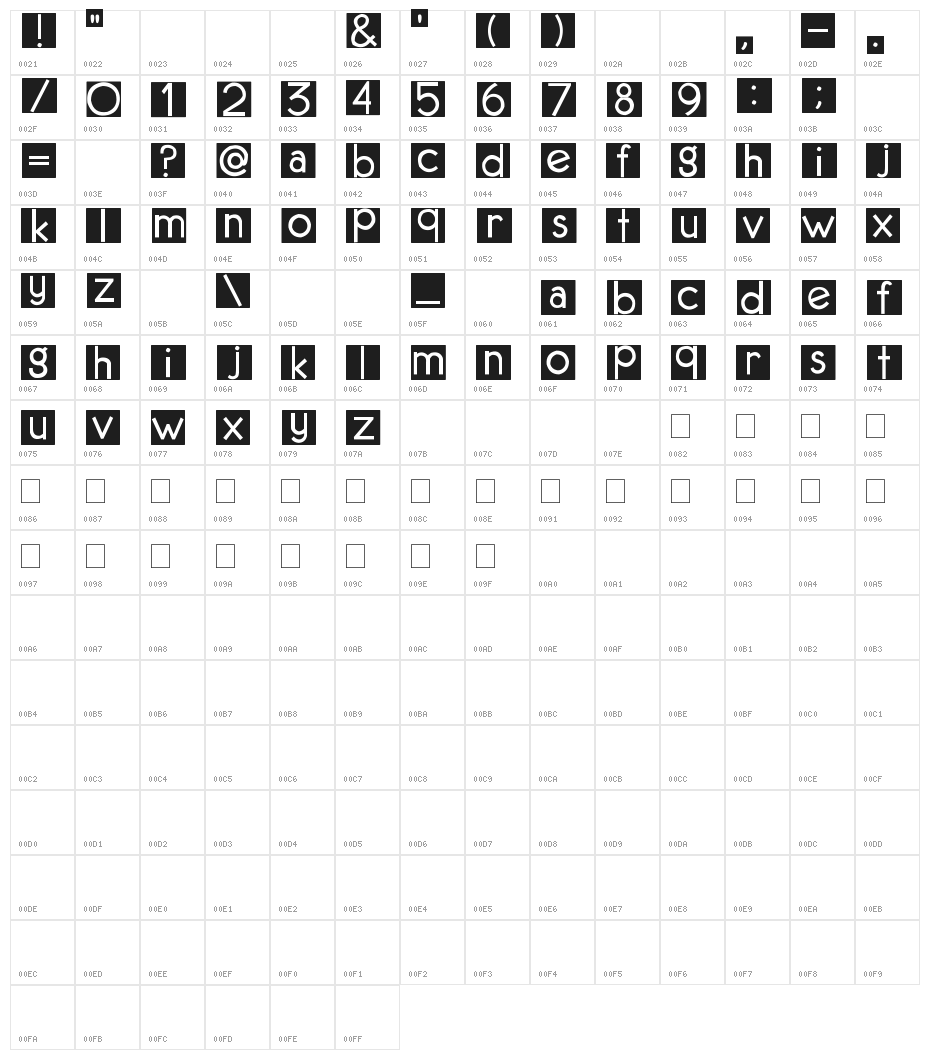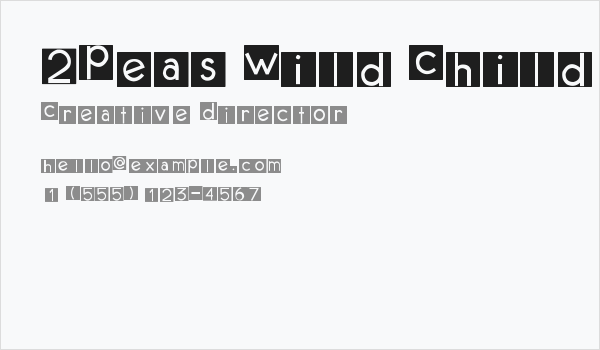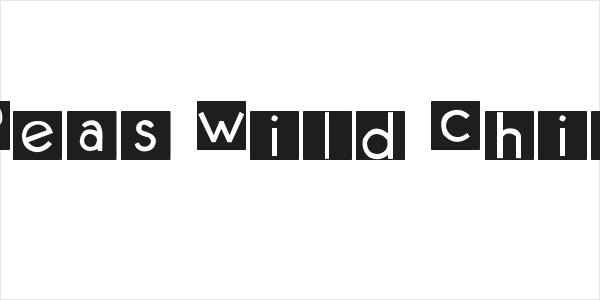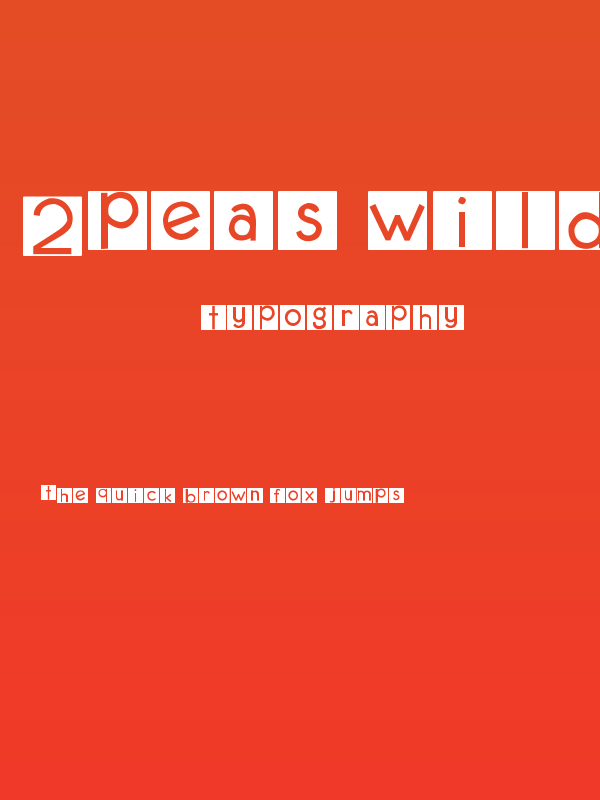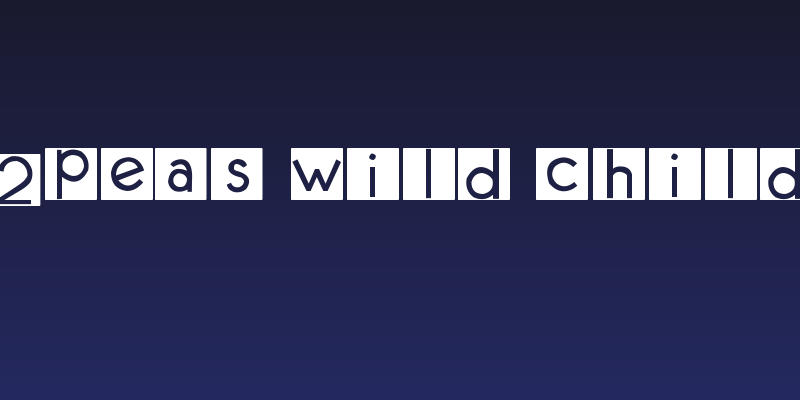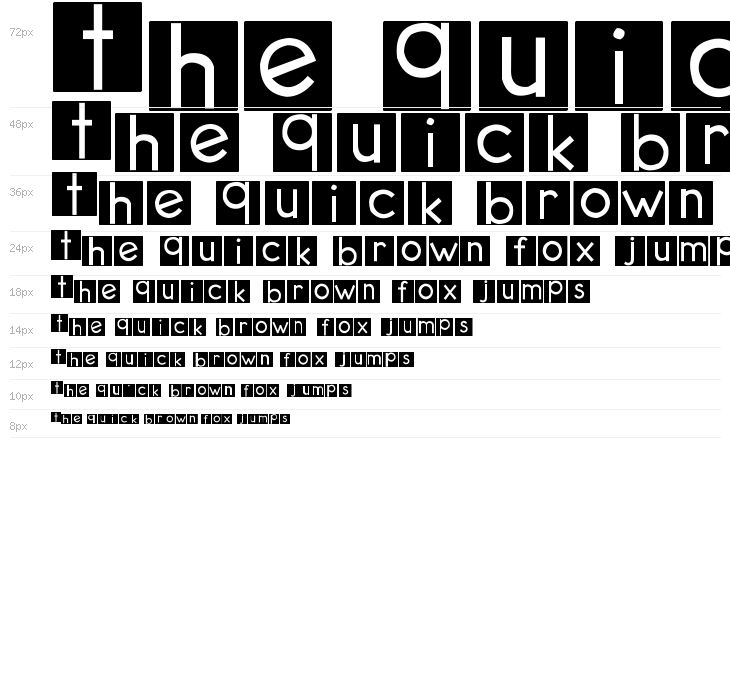
2Peas Wild Child Font
2Peas Wild Child Description
This playful and whimsical font features a unique blend of bold, rounded characters set within square blocks, creating a striking contrast between the soft curves of the letters and the rigid edges of their backgrounds. The font is characterized by its quirky and informal style, with each letter appearing as if it has been hand-drawn, adding a personal and artistic touch. The uppercase and lowercase letters maintain a consistent design, while the numbers and special characters follow the same playful aesthetic. This font's distinct appearance makes it ideal for creative projects that require a fun and engaging visual element.
Overall StyleWhimsical, Playful